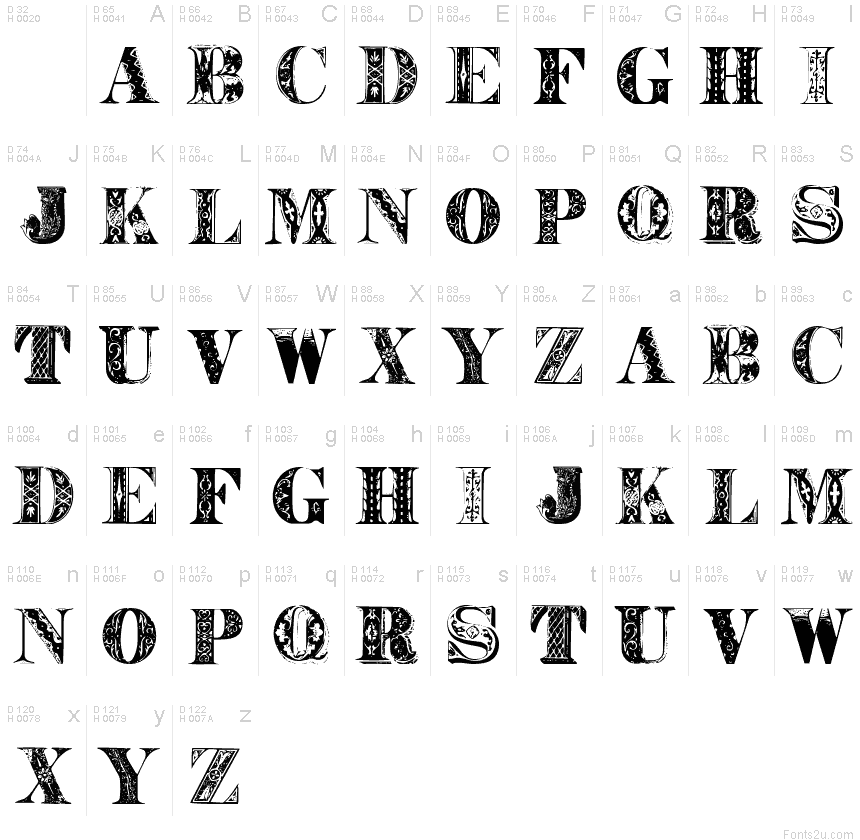
WestBalaio by Paulo W is a free ornamented Western display font built from broad, high-contrast capitals and emphatic slab-like serifs. Its letterforms mix dense black areas with engraved floral curls, crosshatching, dots, and small pictorial details, so the alphabet recalls Victorian broadsides and elaborately tooled frontier signage rather than a plain cowboy typeface, and the varied fillings keep each capital looking hand-cut rather than mechanically repeated.
It is especially convincing on saloon and brewery branding. The same carved-and-printed texture also fits theatrical posters, historical event graphics, and book covers, where the letters can function almost like miniature illustrations alongside period imagery.
A set of wood-type initials.